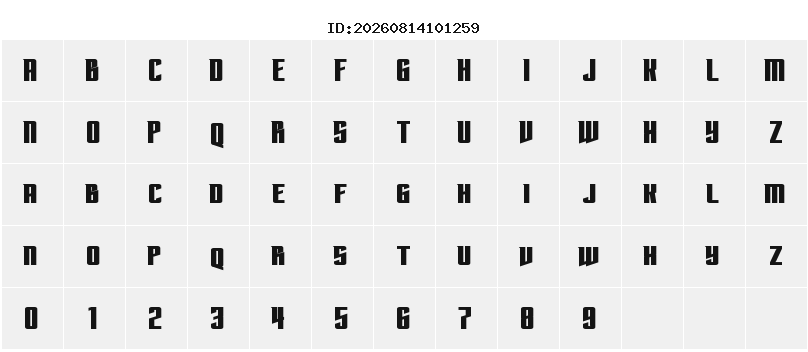
• Font Name: Subspace
• Designer: Neale Davidson
• Manufacturer: Pixel Sagas
About Subspace.otf
Subspace.otf is a modern, elegant sans-serif font designed for ultimate readability and visual harmony. Perfect for branding, headlines, web design, and print materials.